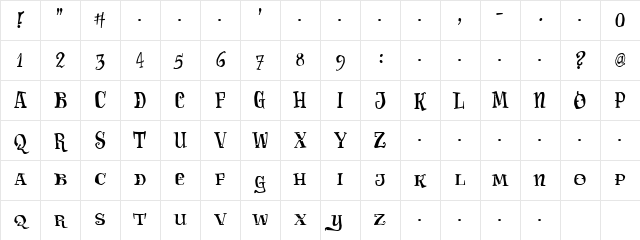
Carima Regular
Design Context for Carima
Carima is a composed and adaptable typeface that performs quietly and consistently across a wide range of design contexts.